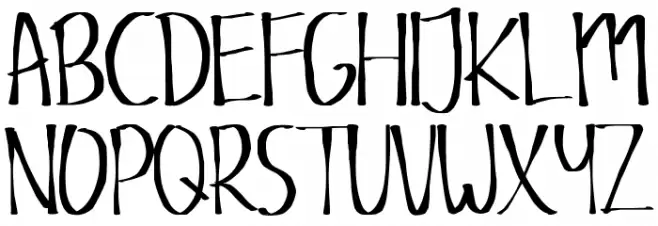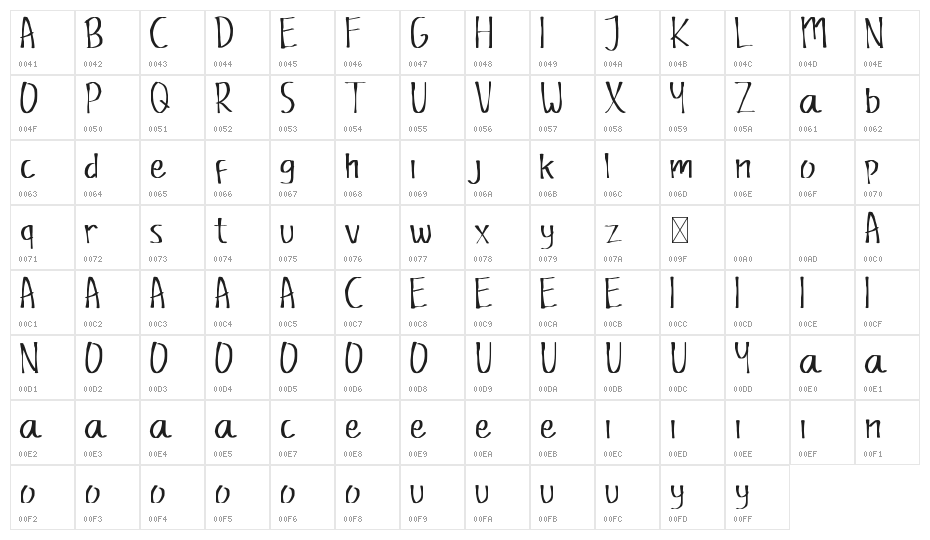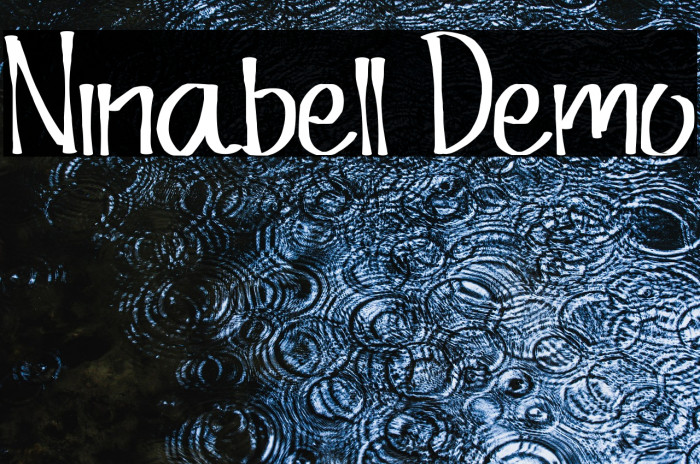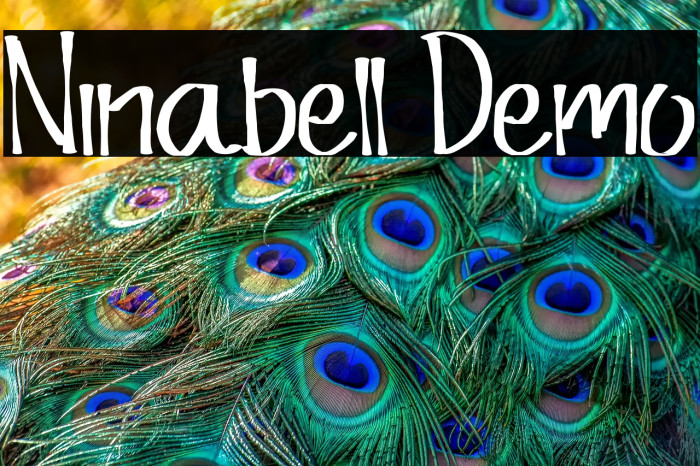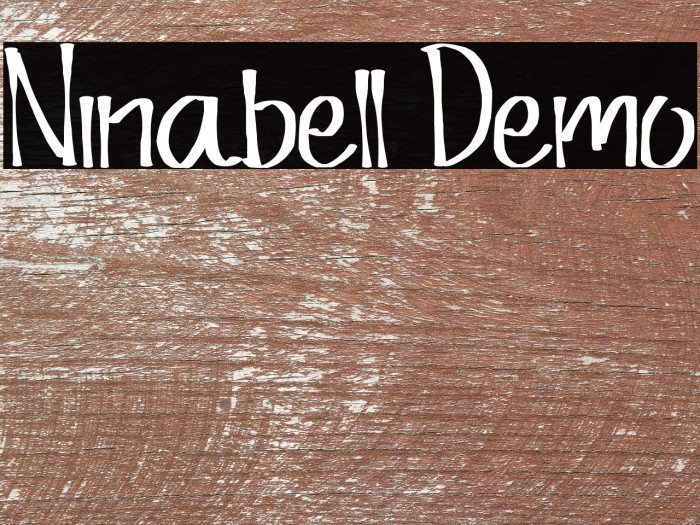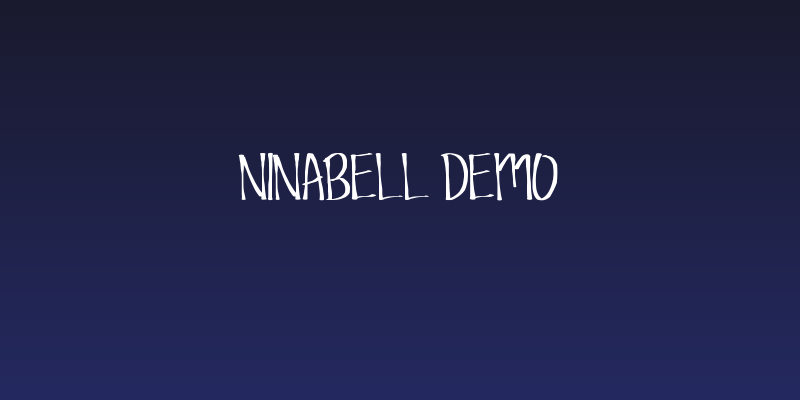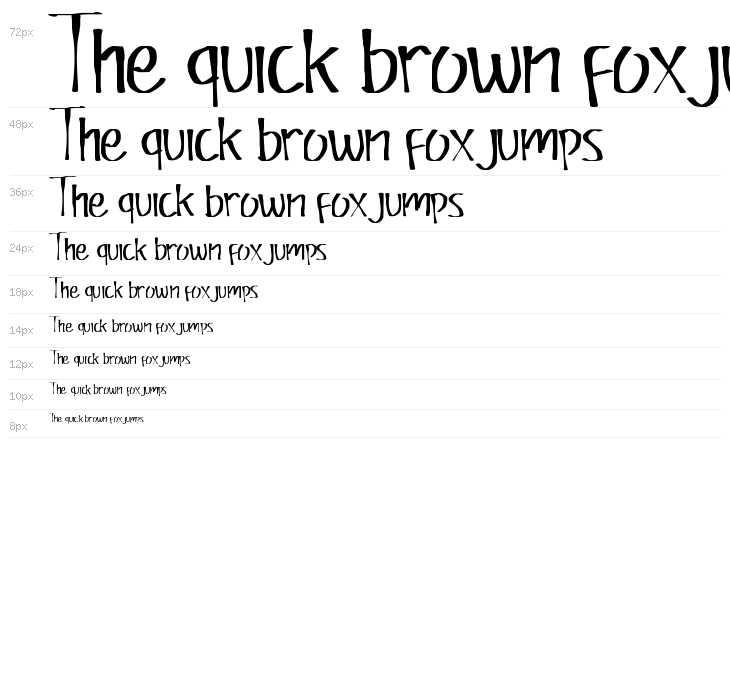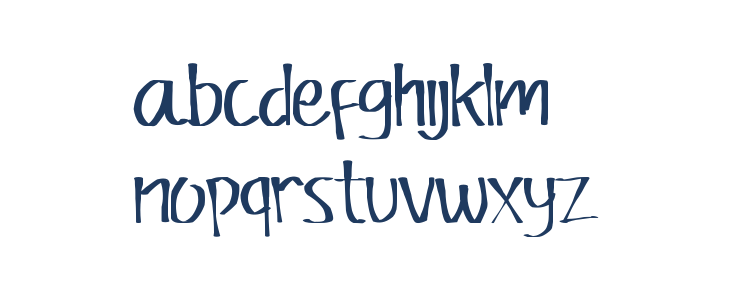
Ninabell Demo Font
Ninabell Demo Description
This font features a playful and whimsical handwritten style, characterized by its irregular strokes and varying line thickness. The letters have a casual, organic feel, with a slightly uneven baseline that adds to its charm. The uppercase and lowercase letters are distinct yet harmonious, maintaining a consistent flow throughout. The font exudes a sense of creativity and spontaneity, making it ideal for projects that require a personal touch. Its unique style is both approachable and artistic, suitable for a variety of design applications.